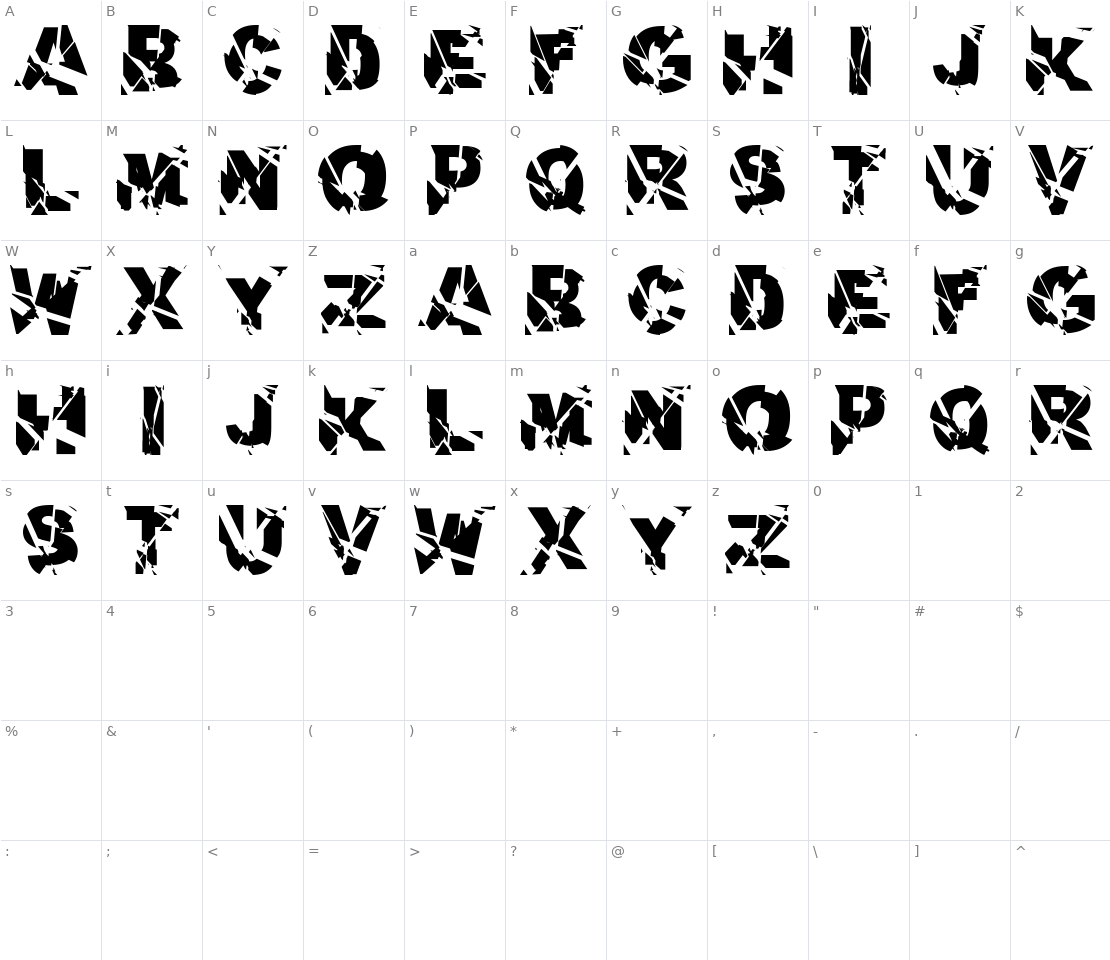
Aerial Demented
Aerial Demented is a bold, uppercase display face from BC with letterforms that look like they've been fractured from the inside out, cracks splintering across every surface. The shattered texture gives it a violent, unstable energy that fits horror posters, haunted house signage, and anything meant to feel like it's falling apart. Strictly a headline font, built for impact at large sizes where the broken detail can really register.